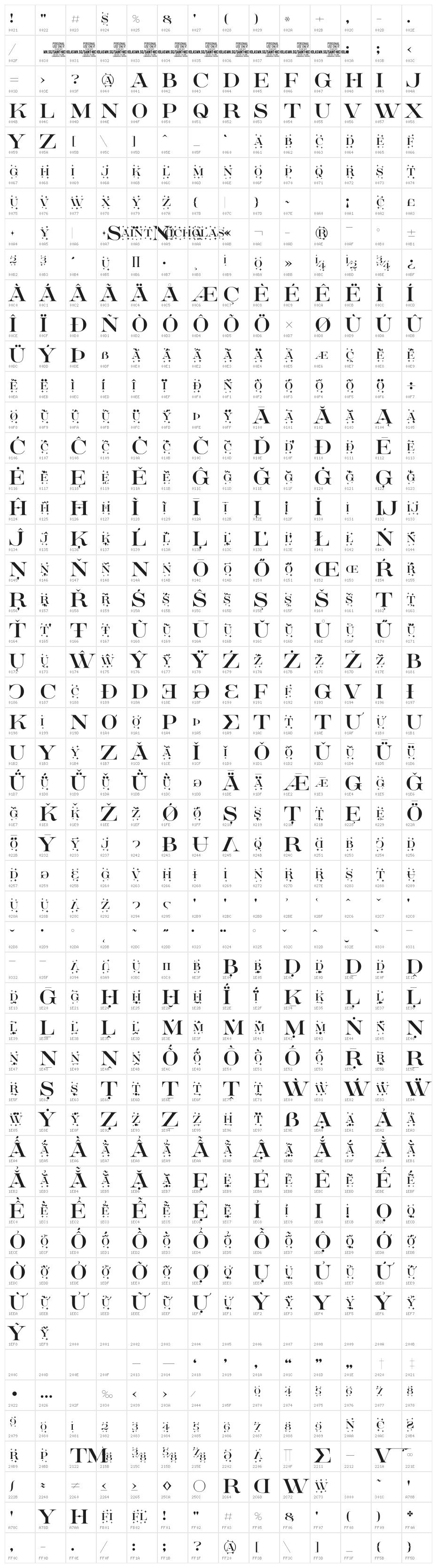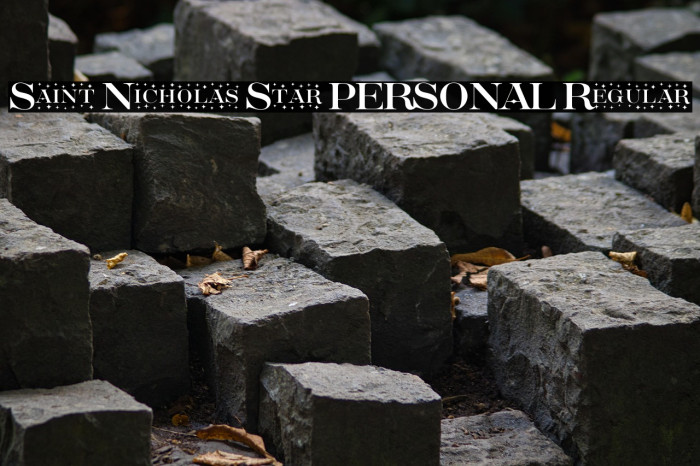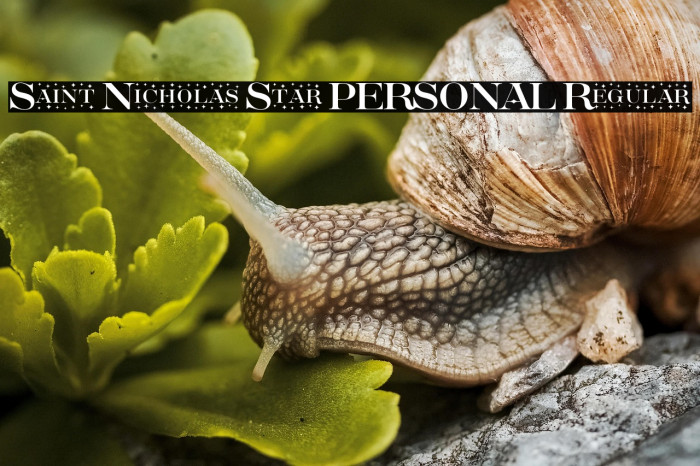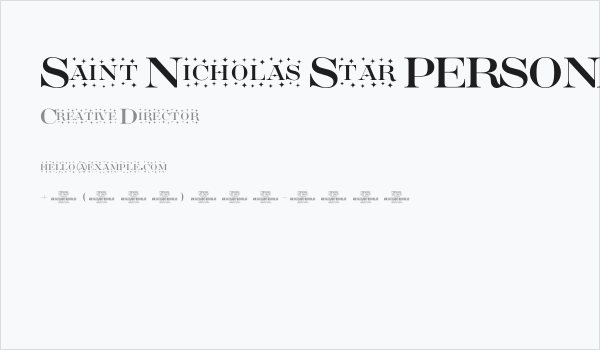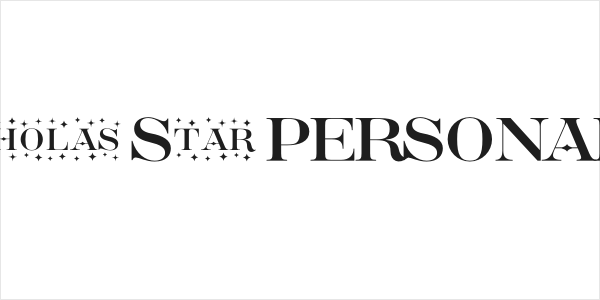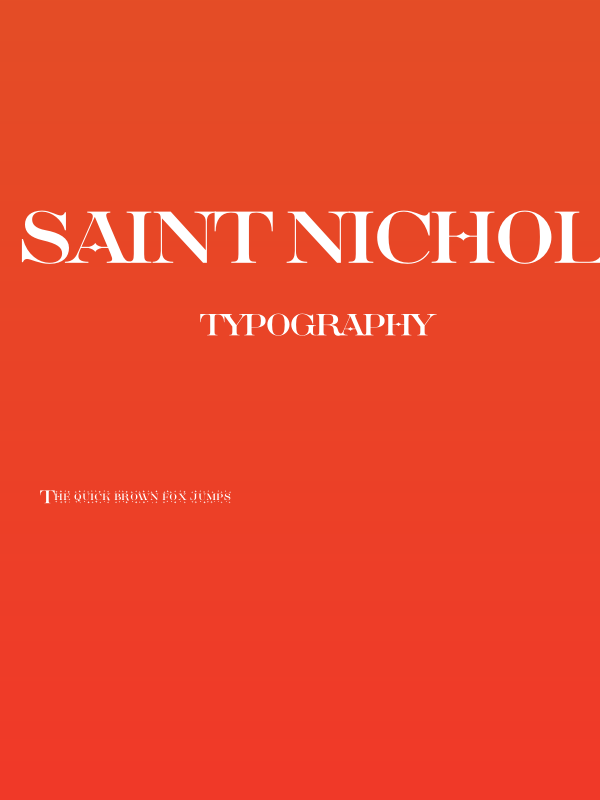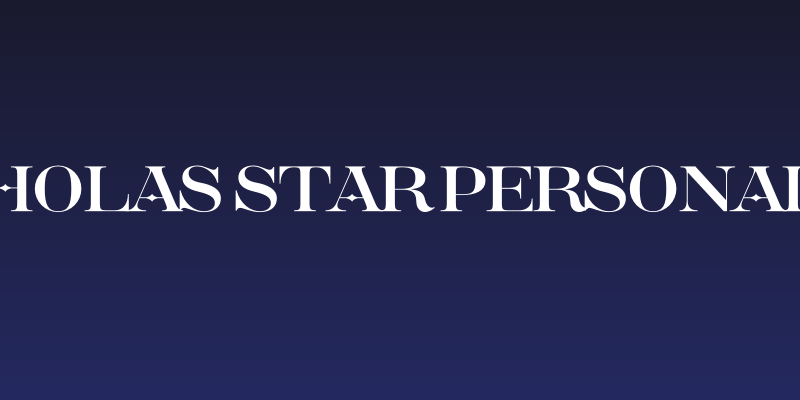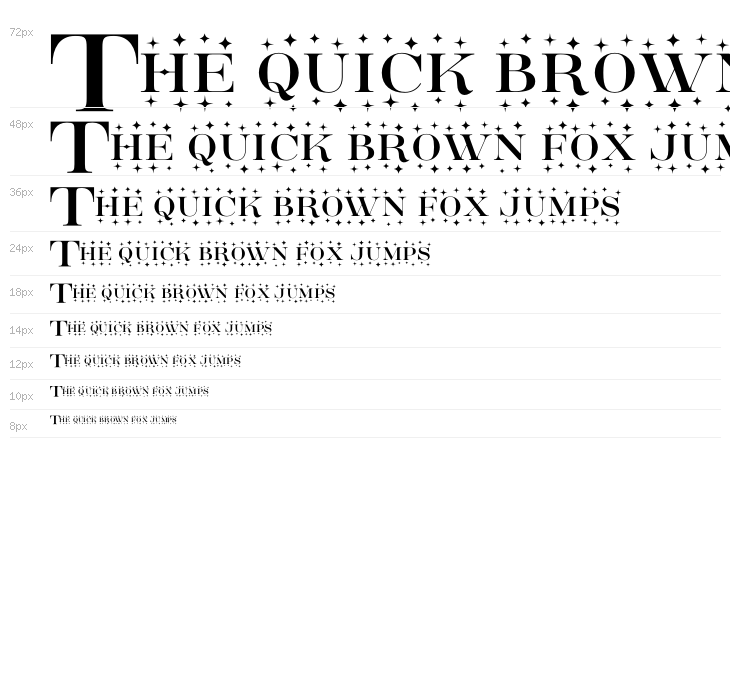
Saint Nicholas Star PERSONAL Regular Font
Saint Nicholas Star PERSONAL Regular Description
This font features a bold and elegant serif style with a unique star motif integrated into the design. The uppercase letters are characterized by strong vertical lines and sharp serifs, giving a classic yet modern appearance. The lowercase letters maintain the same boldness, ensuring consistency across the typeface. The numbers and special characters are designed to complement the letters, with the star motif adding a decorative touch. This font is ideal for projects that require a blend of sophistication and creativity.
| Proposed Projects | Ideal for holiday-themed designs, luxury branding, invitations, and decorative headlines. |